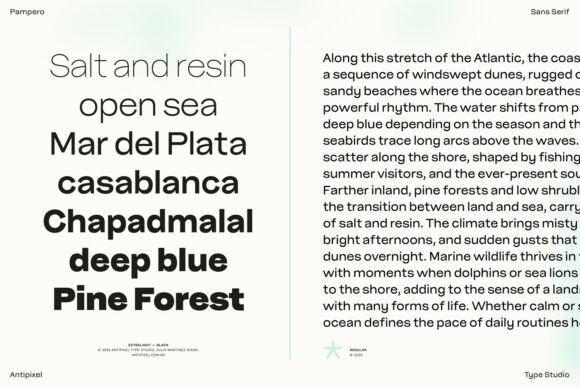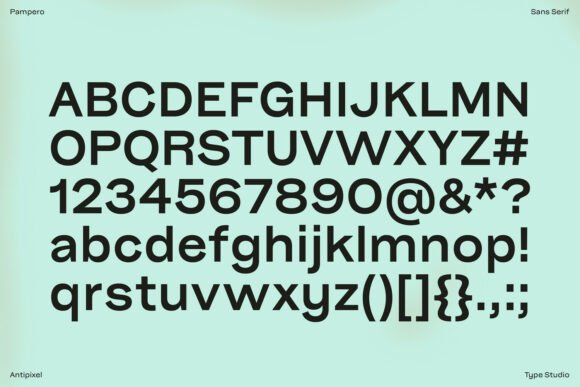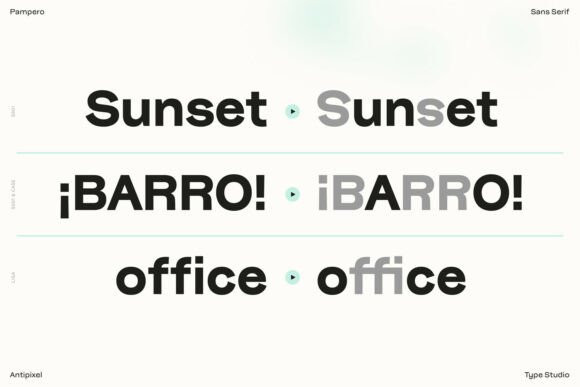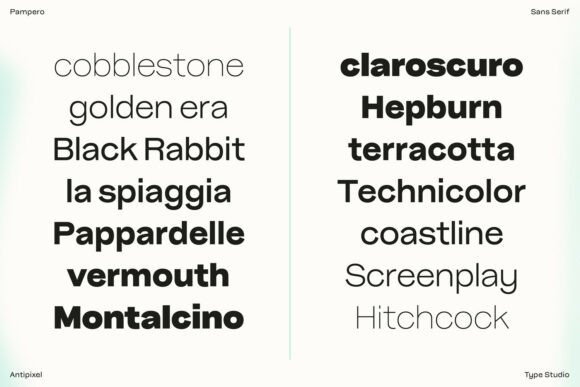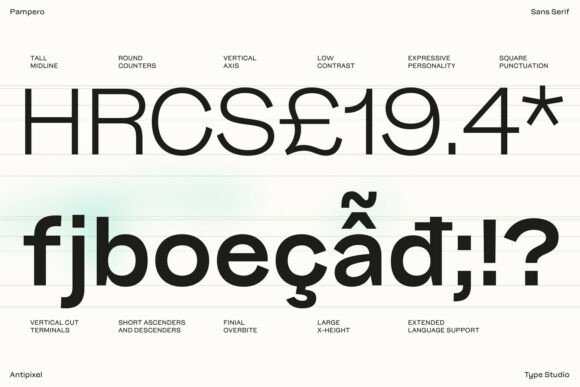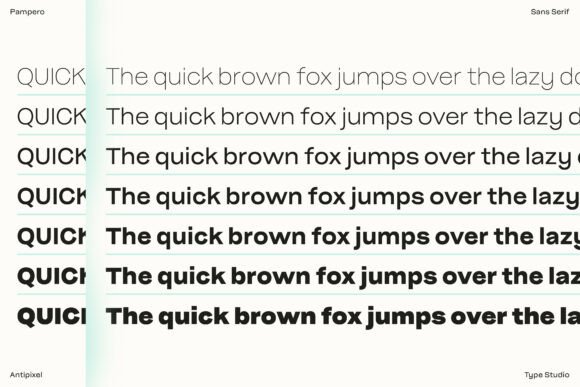
Introduction to Pampero Font
Pampero is a timeless sans-serif typeface built to be every designer’s easy go-to font choice.
Extremely versatile and flexible, Pampero effortlessly adapts to any design context, whether it is as the lead font due to its strong personality or by pairing it as the low-key companion This adaptability comes from its clean, contemporary structure.
Key Features of Pampero Font